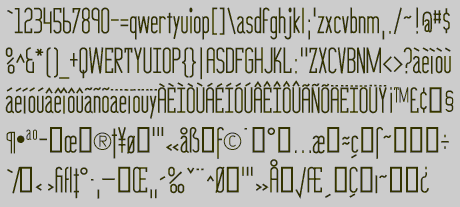
PeterPierre is a sans serif face in which the vertical elements dominate even though there is little or no variation in stroke width. The plain version is readable at small point sizes, and could be used where a condensed typeface is appropriate. However, it is more likely to be useful for display purposes.
The condensed version was the first of this group to be developed and the rest were derived from it. It is useful only at larger point sizes.